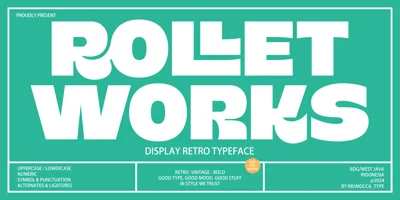
Rollet Works Font
Rollet Works Font is ideal for industrial branding projects, construction company logos, workshop signage, manufacturing labels, automotive graphics, machinery documentation, technical manuals, blueprint headers, warehouse labeling, and professional service branding. This robust typeface excels in applications requiring strength, reliability, and industrial authenticity.
What makes Rollet Works Font exciting is its perfect embodiment of industrial craftsmanship that combines rugged durability with professional precision. The font captures the essence of manufacturing excellence through its solid letterforms and mechanical-inspired design elements that suggest quality workmanship and technical expertise. Its sturdy character construction reflects the reliability and strength associated with professional trades and industrial applications.
The Rollet Works Font family encompasses multiple weights including Light, Regular, Medium, Bold, and Heavy variations, along with condensed and expanded versions. Each style maintains the font's industrial character while providing comprehensive typographic flexibility for complex branding systems and technical documentation requirements.
Whether you're developing industrial brand identities, creating professional documentation, or designing technical communication materials, Rollet Works Font delivers the authoritative typography needed for credible industrial presentation. This font perfectly balances mechanical precision with human craftsmanship, making it an excellent choice for projects that need to convey expertise, reliability, and professional competence. Its robust construction ensures outstanding legibility across both digital interfaces and printed technical materials.